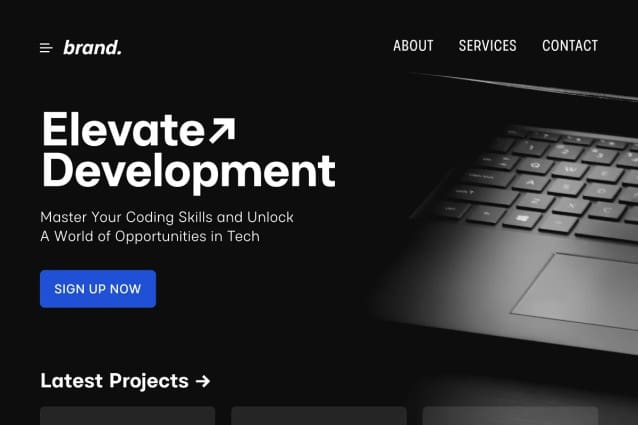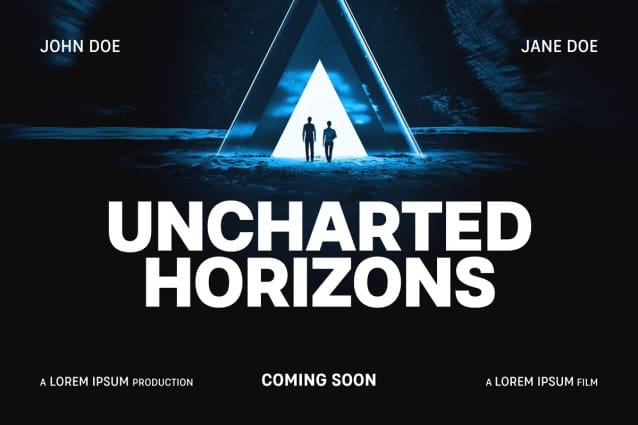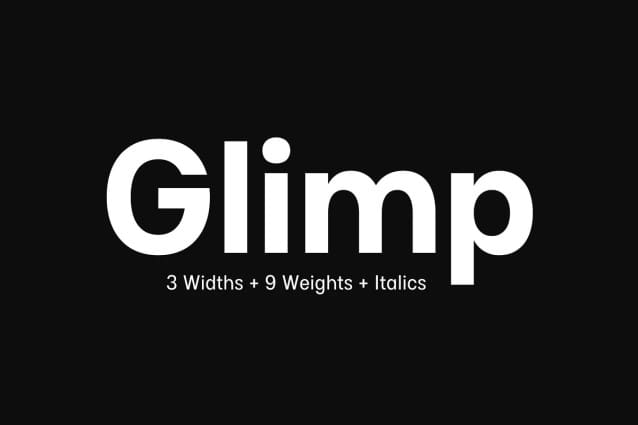
Glimp Font
Glimp Font, is a new versatile modern geometric font family, offering 3 widths, 9 weights, and corresponding italics. It features a rich set of opentype features such as stylist sets, contextual alternates, case-sensitive forms, superscripts, subscripts, fractions, and more.
Glimp Font is expertly crafted to be your top choice across a diverse array of projects, be it branding, web design, print materials, or presentations. It seamlessly enhances your designs, embracing your unique creative vision.